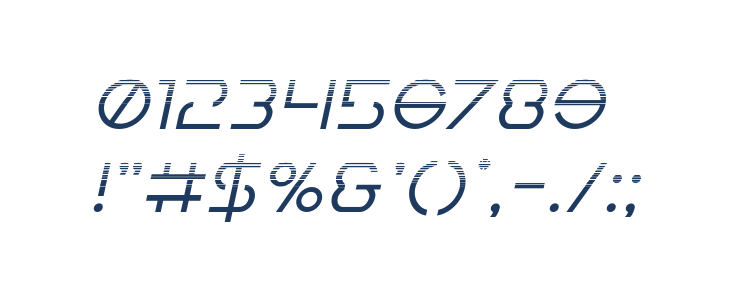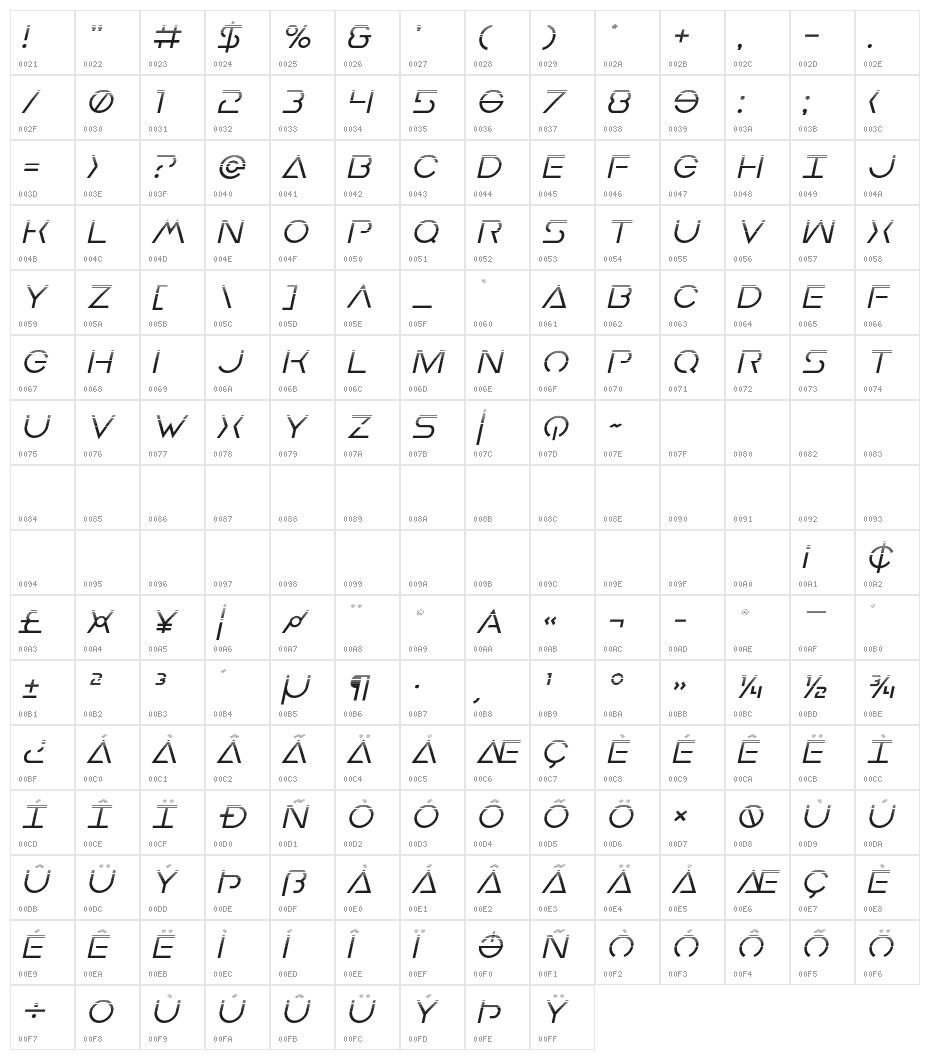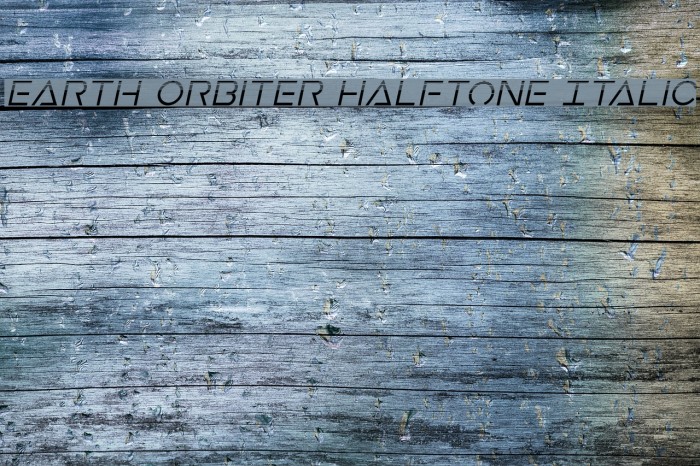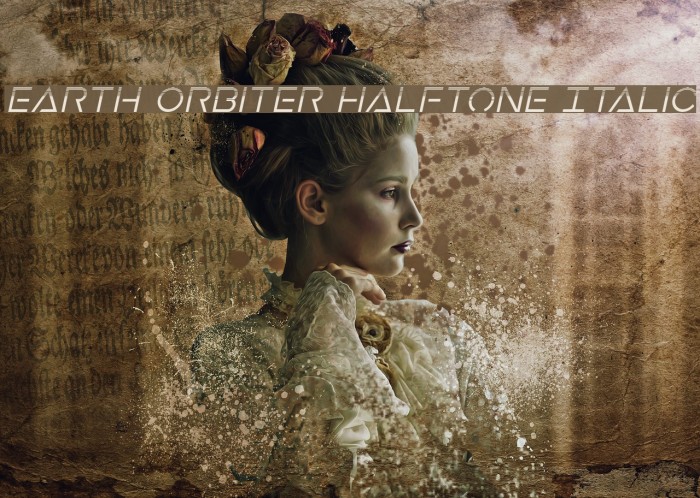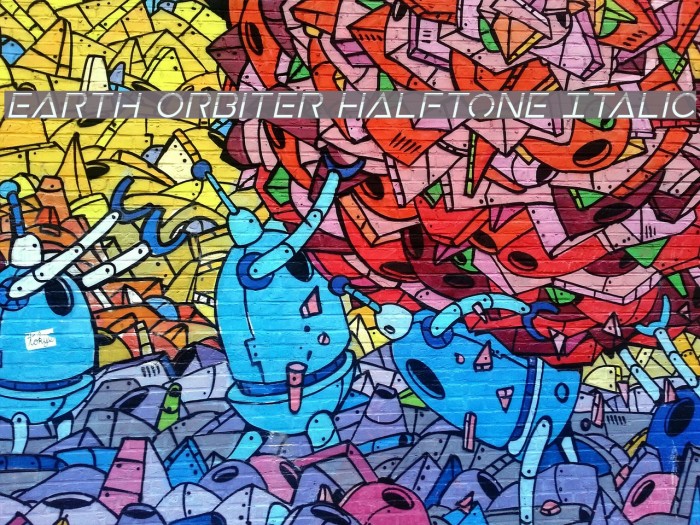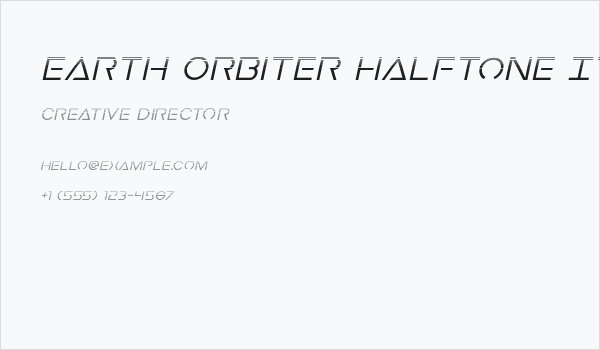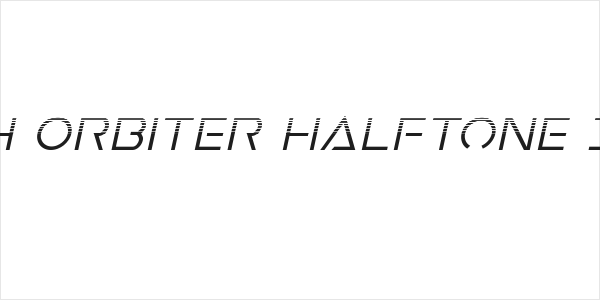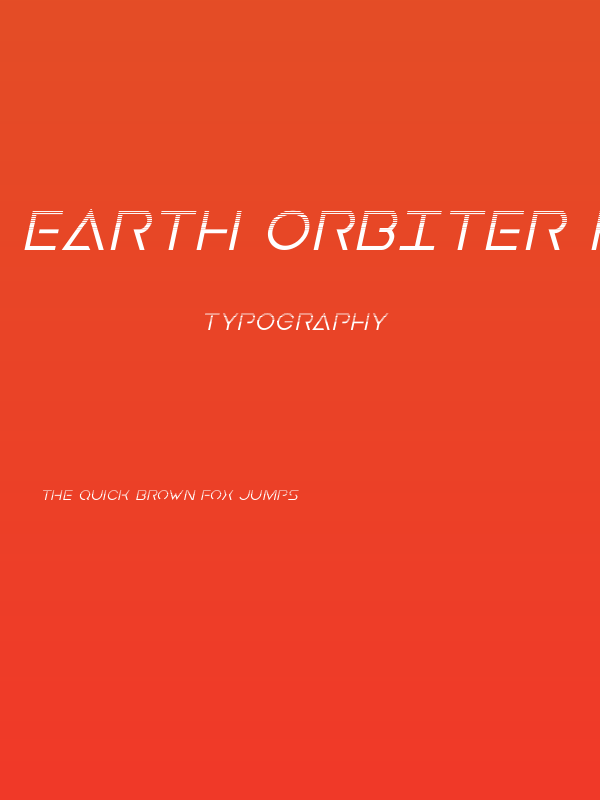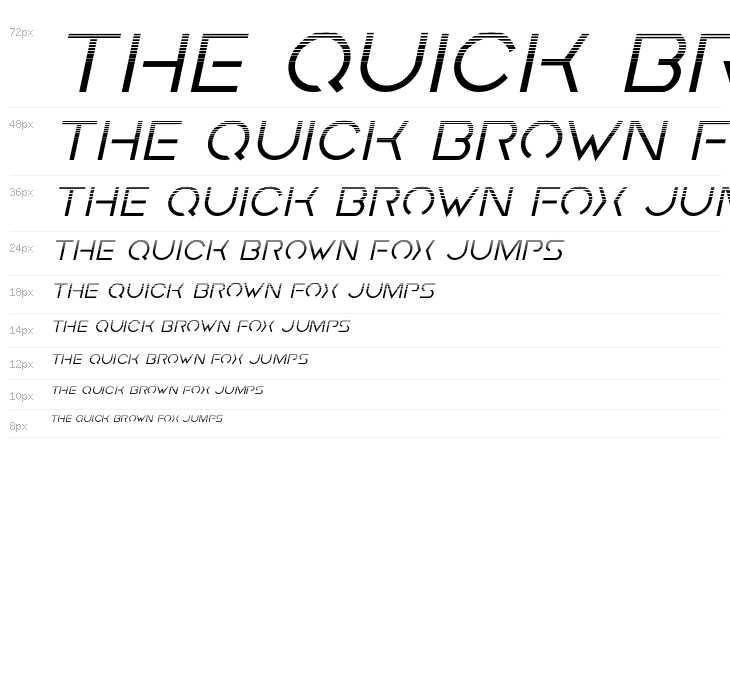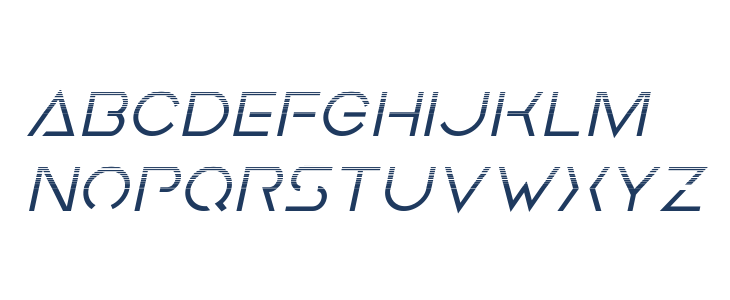
Earth Orbiter Halftone Italic Font
Earth Orbiter Halftone Italic Description
This font features a futuristic and dynamic design with a halftone effect that gives it a sense of motion and energy. The italicized letters are sleek and angular, with a distinct slant that enhances its modern appeal. The halftone pattern within each character adds texture and depth, making it stand out in digital and print media. The uppercase and lowercase letters maintain a consistent style, while the numerals and special characters are designed to complement the overall aesthetic. This font is ideal for projects that require a bold and innovative look.
| Proposed Projects | Ideal for tech-related branding, sci-fi posters, video game titles, and digital media projects. |